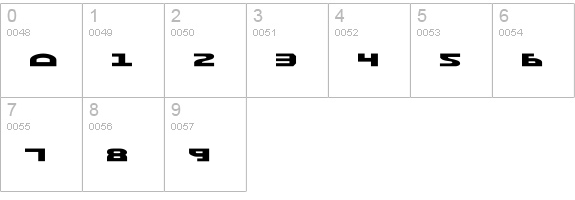
Morse NK Font Details
Morse NK is a modern and stylish font that exudes elegance and sophistication. This versatile typeface effortlessly combines classic elements with a contemporary twist, making it perfect for a wide range of design projects. With its clean lines and sharp edges, Morse NK is sure to make a bold statement while maintaining a sense of refinement. What sets Morse NK apart is its unique character and attention to detail. Each letter is meticulously crafted to ensure readability and visual appeal, making it an ideal choice for logos, branding, headlines, and more. This font offers a perfect balance between professionalism and creativity, making it suitable for both formal and casual designs. Best of all, Morse NK is available for free download at FontsMarket.com. This means you can easily access this high-quality font without any cost, making it a valuable addition to your font collection. Don't miss out on the opportunity to enhance your designs with the elegance and charm of Morse NK. Download it today and start creating stunning visuals that will leave a lasting impression.